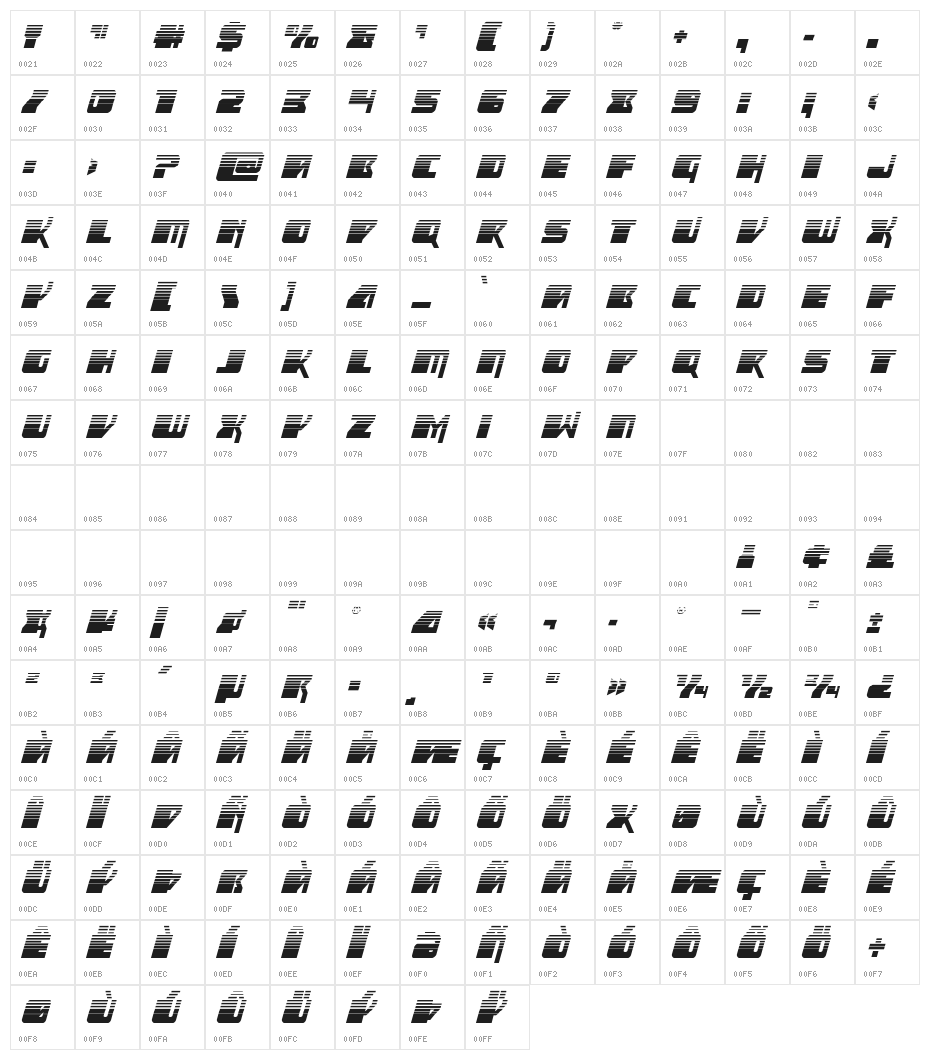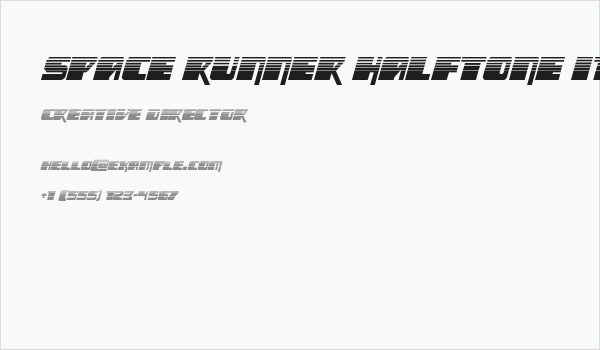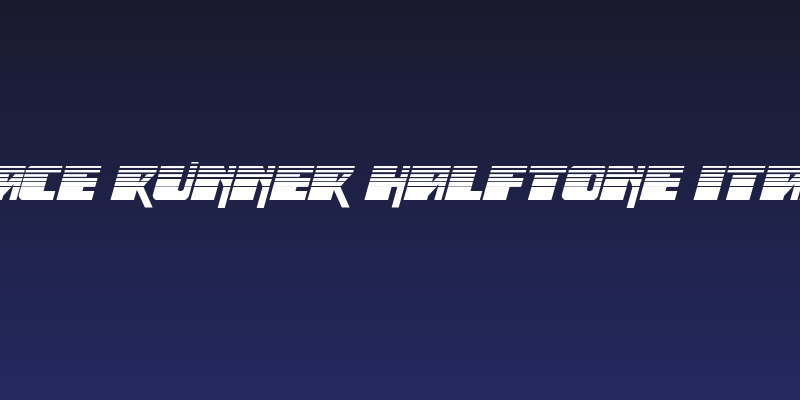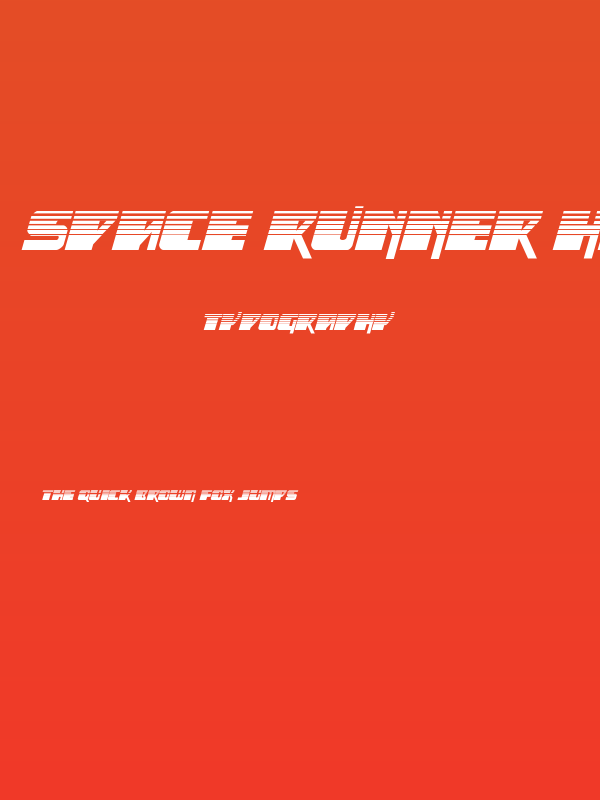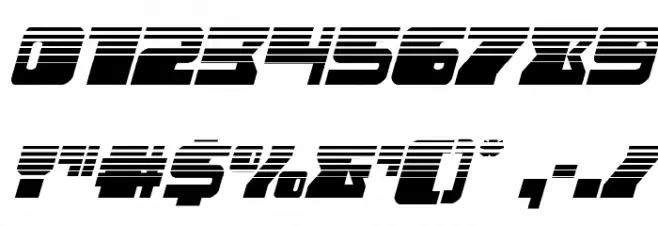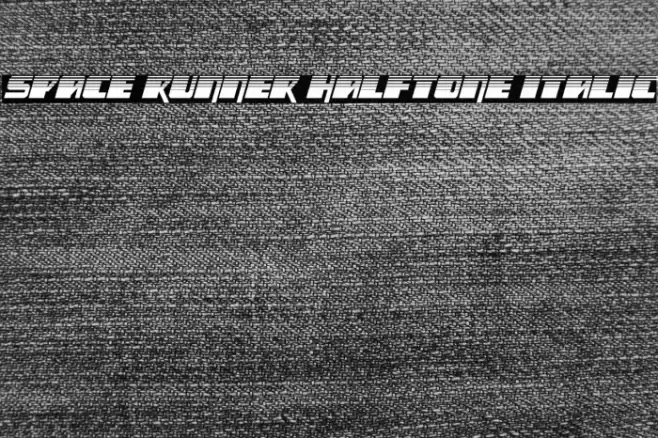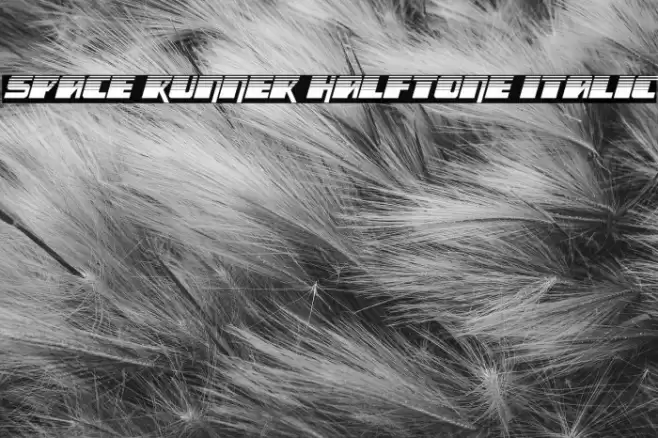
Space Runner Halftone Italic Font
This font features a futuristic and dynamic design, characterized by its bold, italicized letters with a halftone effect. The characters are constructed with horizontal lines that create a sense of motion and speed, making it ideal for projects that require a modern and energetic aesthetic. The uppercase and lowercase letters maintain a consistent style, with sharp angles and a sleek appearance. The numbers and special characters are equally stylized, ensuring a cohesive look across all text elements. This font's unique style is perfect for capturing attention and conveying a sense of innovation and forward-thinking.
| Proposed Projects | Ideal for sci-fi posters, tech branding, video game titles, and futuristic event flyers. |